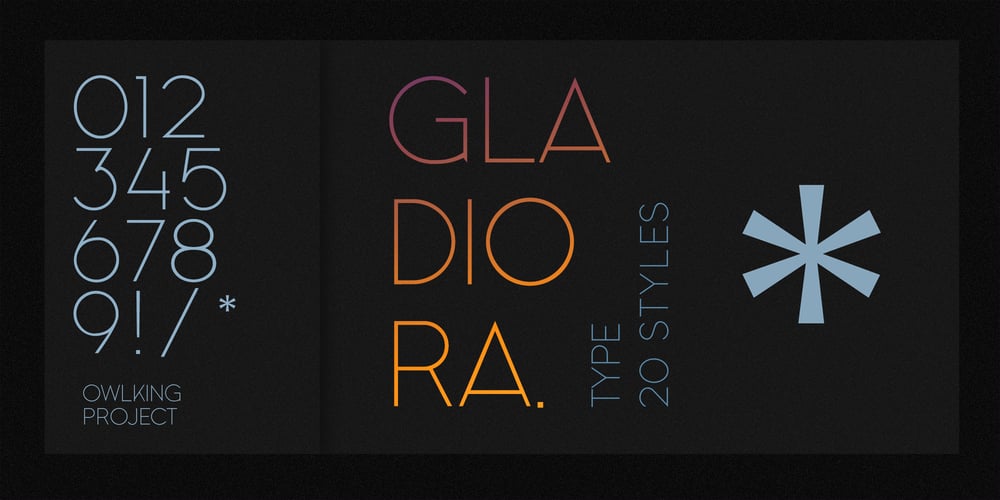
Gladiora Font Family was designed by Darhilen and published by Owl king project. Gladiora contains 20 styles and family package options. GladioraSans serif font family with tapered accents in some of the letters gives it a modern and bold character, even being quite prominent in thin characters. This font aims to give an elegant impression and also looks so luxurious in short wording for a letter-based title and logo. With 20 types and support for multi-languages, this font provides a wider range of exploration, which can be useful also for reading sentences and giving variety to each sentence by combining it with several sizes.